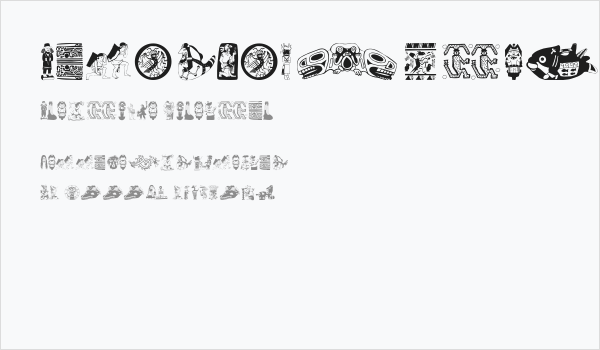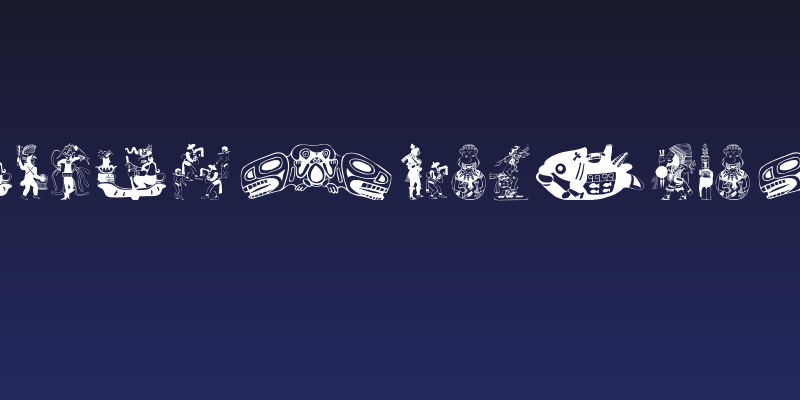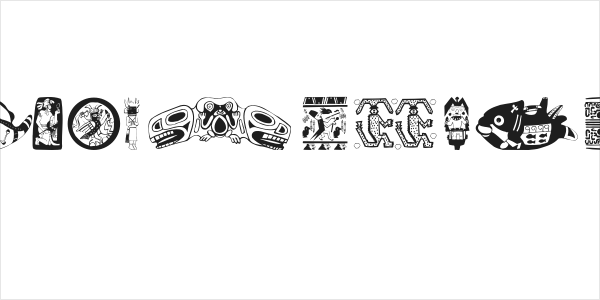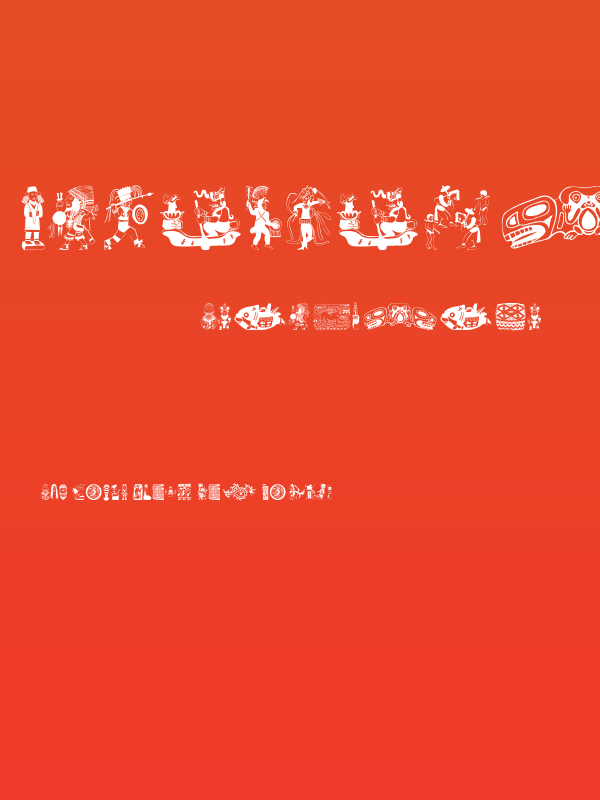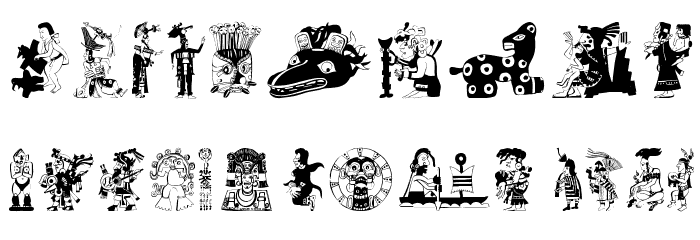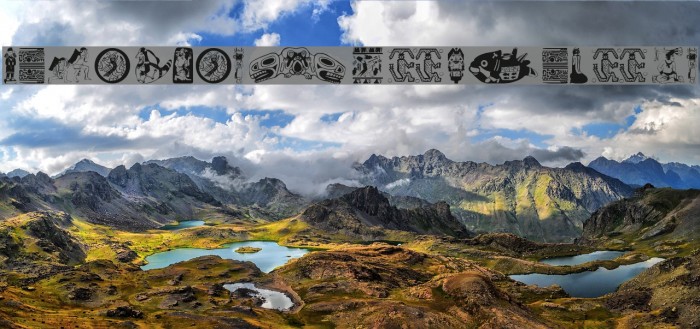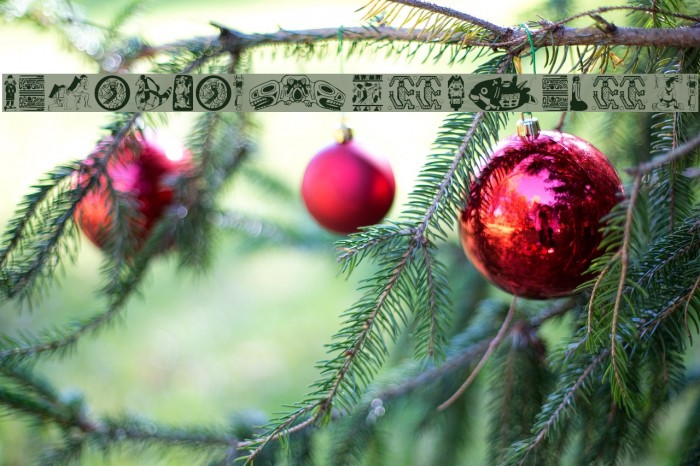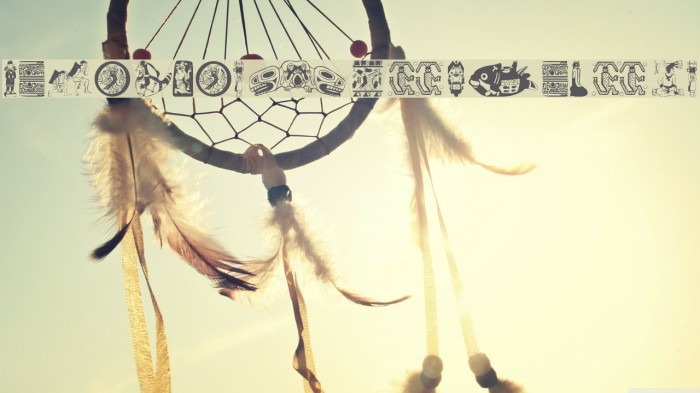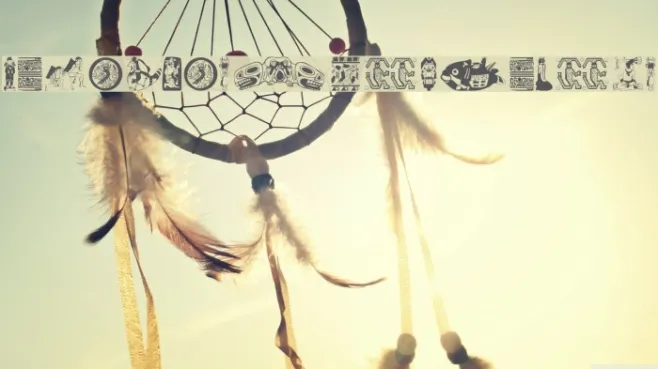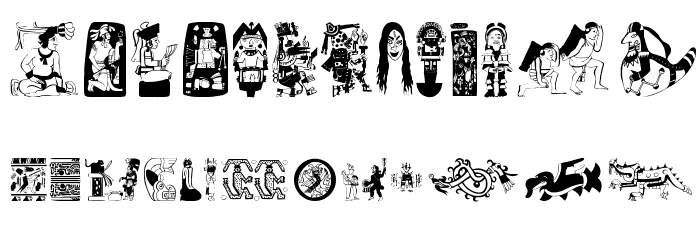
ColumbusAntePortas Font
ColumbusAntePortas Description
Highly decorative font inspired by pre-Columbian and indigenous American art, featuring intricate illustrations and glyph-like characters with complex, pictorial forms. Each letter and symbol is represented by a unique, detailed scene or figure, making legibility secondary to visual impact.
| Overall Style | Decorative, Ethnic, Pictorial |
| Use Case | Display, Posters, Themed Titles, Art Installations |
| Proposed Projects | Posters, art projects, educational materials, themed event graphics, museum displays, cultural exhibitions. |